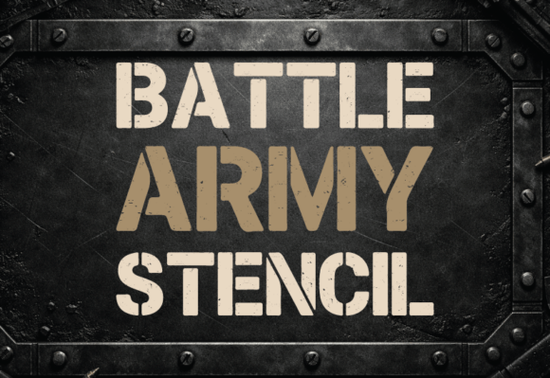
Designers, crafters, and small business owners looking for a strong, versatile font will find the Battle Army Stencil Font to be a valuable addition to their toolkit. This bold sans-serif font draws inspiration from military stencil typography, offering a unique blend of geometric structure and rugged textures. Whether you're creating posters, YouTube thumbnails, or tactical branding, this font delivers a high-impact look that stands out.
The Battle Army Stencil Font combines clean letterforms with distressed details, making it ideal for projects that require a gritty, combat-ready aesthetic. Its design includes scratched edges and worn ink textures that add authenticity without compromising readability. This balance makes it suitable for a wide range of applications, from apparel prints to gaming visuals.
If you're working on military-themed designs or want to add a raw, powerful feel to your work, this font is an excellent choice. It’s particularly useful for creating eye-catching headlines, logos, and promotional materials that need to convey strength and intensity. The font’s versatility allows it to fit into both modern and vintage-style projects seamlessly.
What Makes Battle Army Stencil Stand Out?
One of the key features of the Battle Army Stencil Font is its ability to maintain clarity while still delivering a rugged appearance. Unlike some fonts that sacrifice readability for style, this one keeps its structure clean, ensuring that even in smaller sizes, the text remains legible. This makes it perfect for use in a variety of design formats, including digital and print media.
The font also includes a range of stylistic alternatives, allowing users to customize their designs without needing additional tools. These variations can help create more dynamic compositions, especially when used in combination with other elements like graphics or background textures.
Best Uses for Battle Army Stencil Font
This font is especially effective for projects that require a strong visual impact. Here are a few common applications:
- Posters and Banners: Use it for event promotions, sports themes, or motivational messages.
- Gaming Thumbnails: Add a bold, edgy look to your YouTube or Twitch content.
- Tactical Branding: Ideal for businesses or organizations with a military or action-oriented theme.
- Apparel Prints: Great for t-shirts, hats, and other wearable items that need a striking design.
- Military-Themed Designs: Perfect for commemorating events, creating memorabilia, or designing uniforms.
Its adaptability means it can be used in both digital and physical formats, making it a practical choice for designers across different mediums.
How to Use Battle Army Stencil Effectively
To get the most out of the Battle Army Stencil Font, consider the following tips:
- Pair it with complementary fonts: Use a simpler, more traditional font for body text to balance the boldness of the stencil style.
- Experiment with color: Try using contrasting colors to highlight the texture and make the design more visually engaging.
- Test at different sizes: Ensure the font remains readable and impactful across various platforms and formats.
By following these guidelines, you can create designs that are both professional and visually compelling.
If you’re looking for a font that adds a sense of strength and authenticity to your work, the Battle Army Stencil Font is worth exploring. Its unique blend of structure and texture makes it a standout choice for a variety of creative projects.
Before finalizing your design, take a moment to review how the font looks in different contexts. Testing it in real-world scenarios can help you understand its full potential and ensure it meets your project's needs.